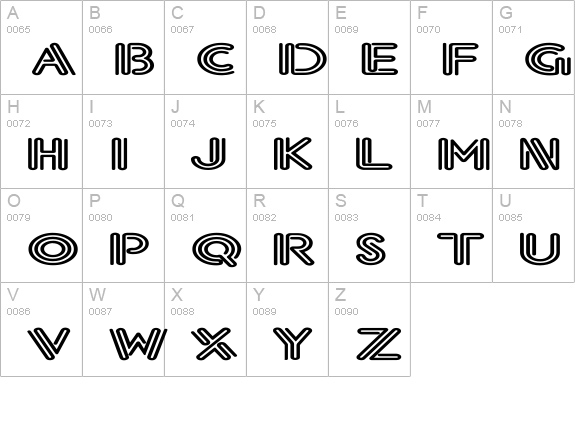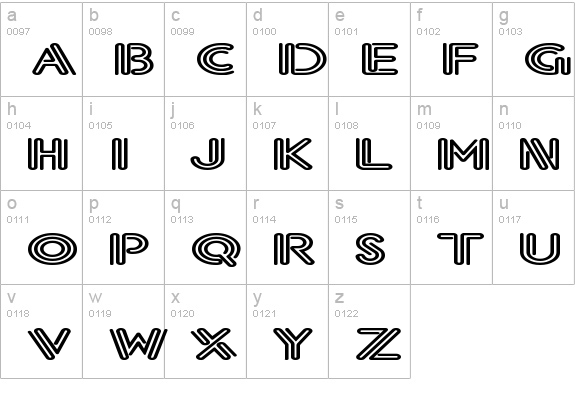
Eklektic-Normal Ex Font Details
Eklektic-Normal Ex is the standard, neutral variant in the Eklektic typeface family \xE2\x80\x94 well suited to general body text, paragraphs, and standard typographic work.
Eklektic-Normal Ex font is a versatile and modern typeface that blends elegance with simplicity. Its clean lines and balanced proportions make it perfect for a wide range of design projects, from branding to editorial design. This font exudes a sense of sophistication and professionalism, making it a fantastic choice for those looking to make a bold statement with their typography. One of the best things about Eklektic-Normal Ex font is that it is completely free to download. You can easily access this stunning typeface at FontsMarket.com, where you can find a wide selection of high-quality fonts for all your design needs. Whether you're working on a personal project or a client's brief, Eklektic-Normal Ex font is sure to add a touch of elegance and style to your work. Download it today and elevate your designs to the next level.